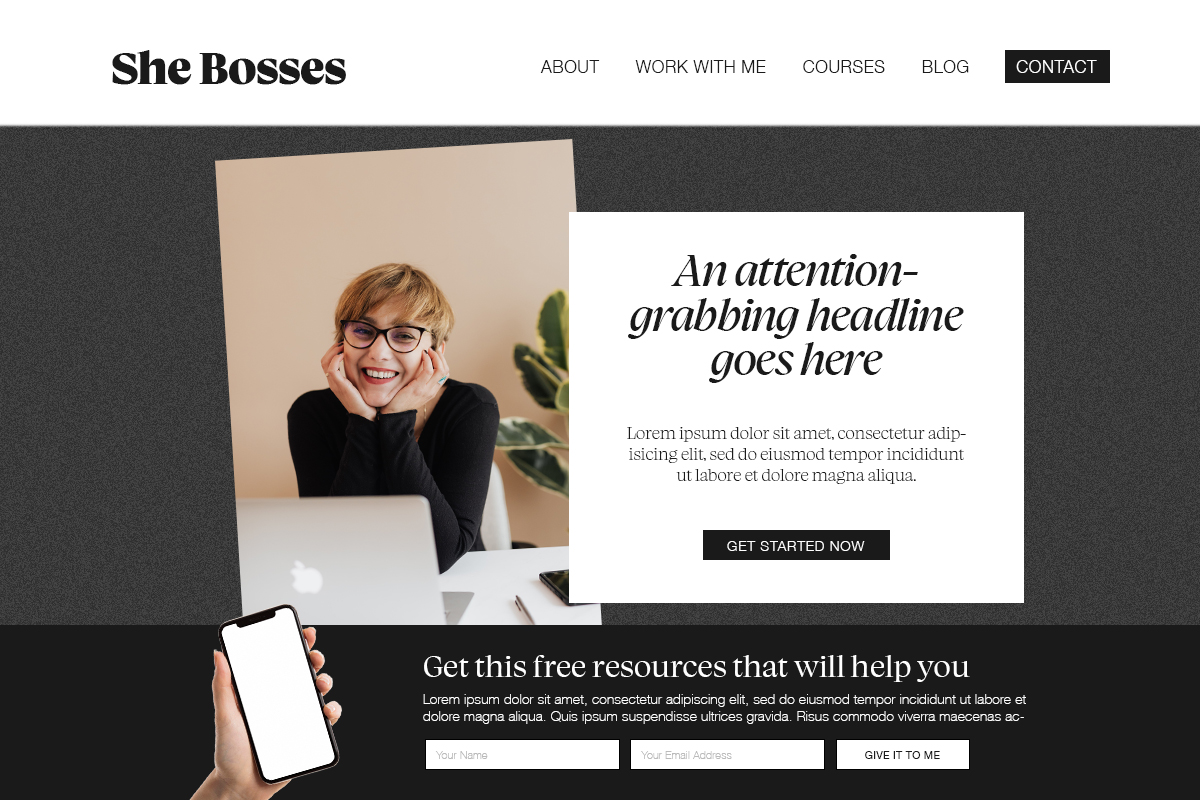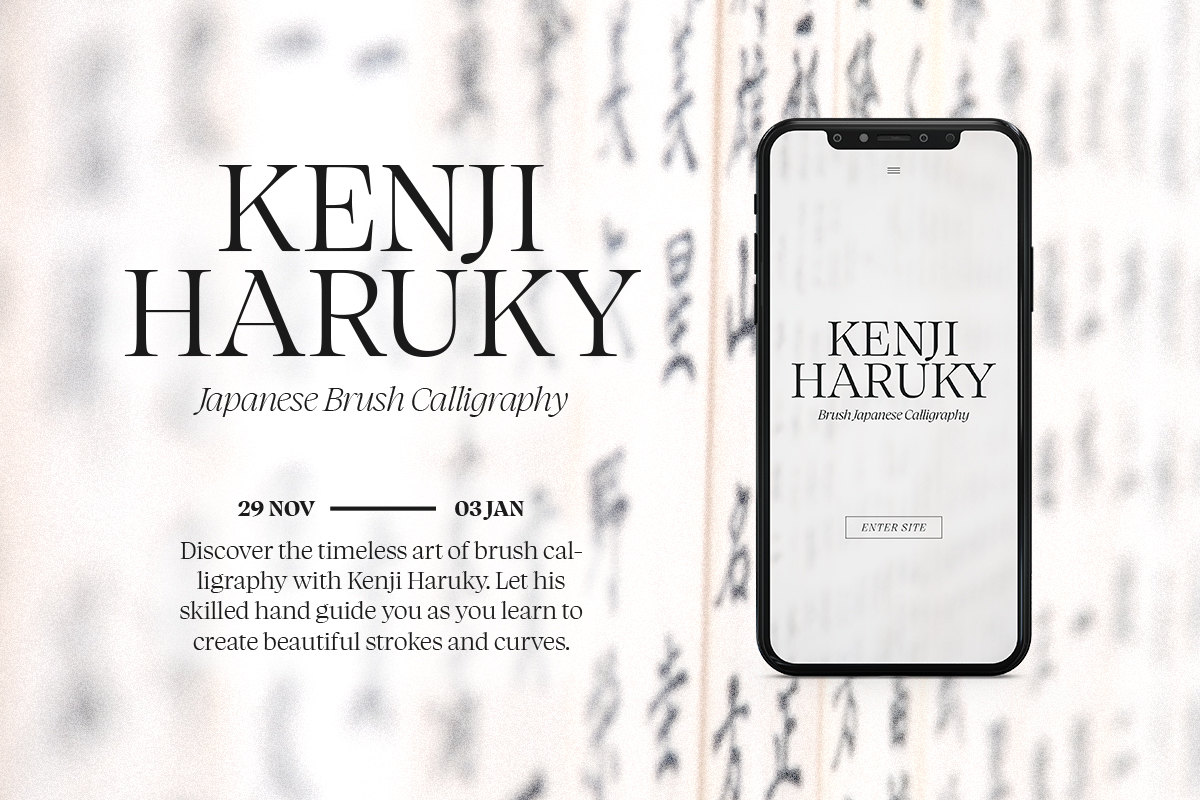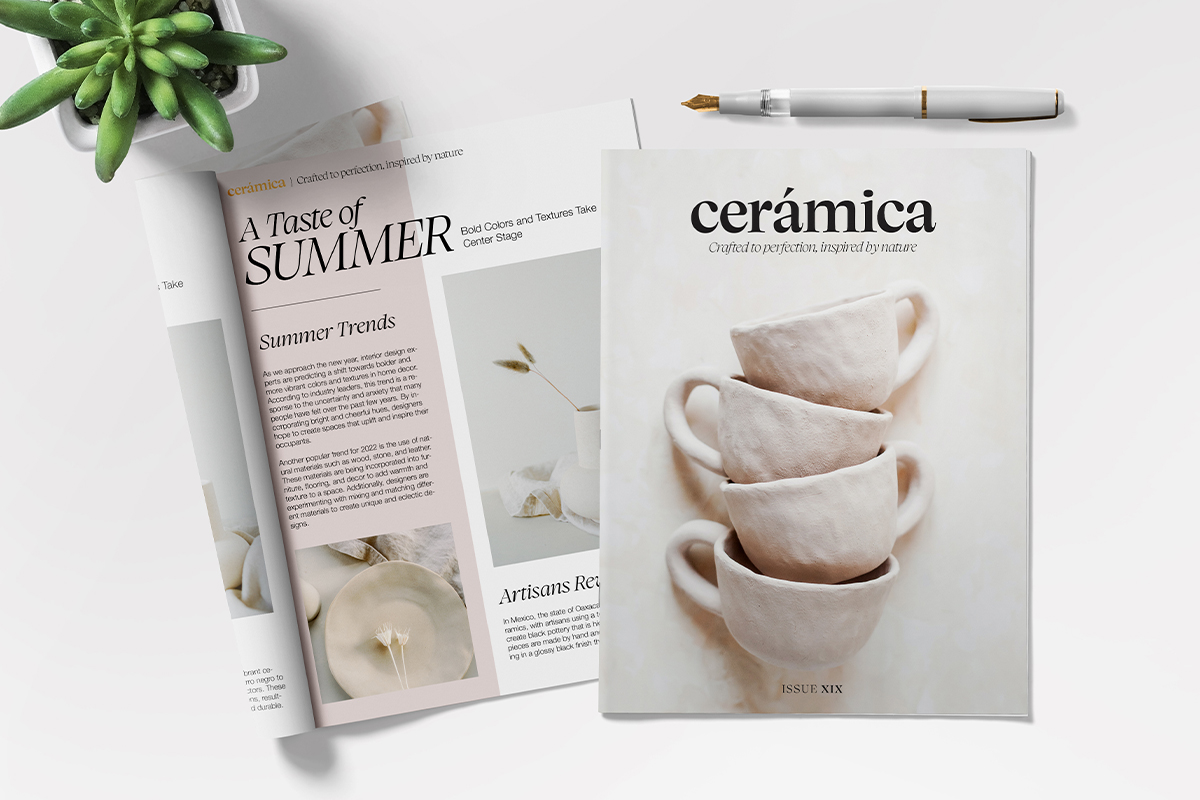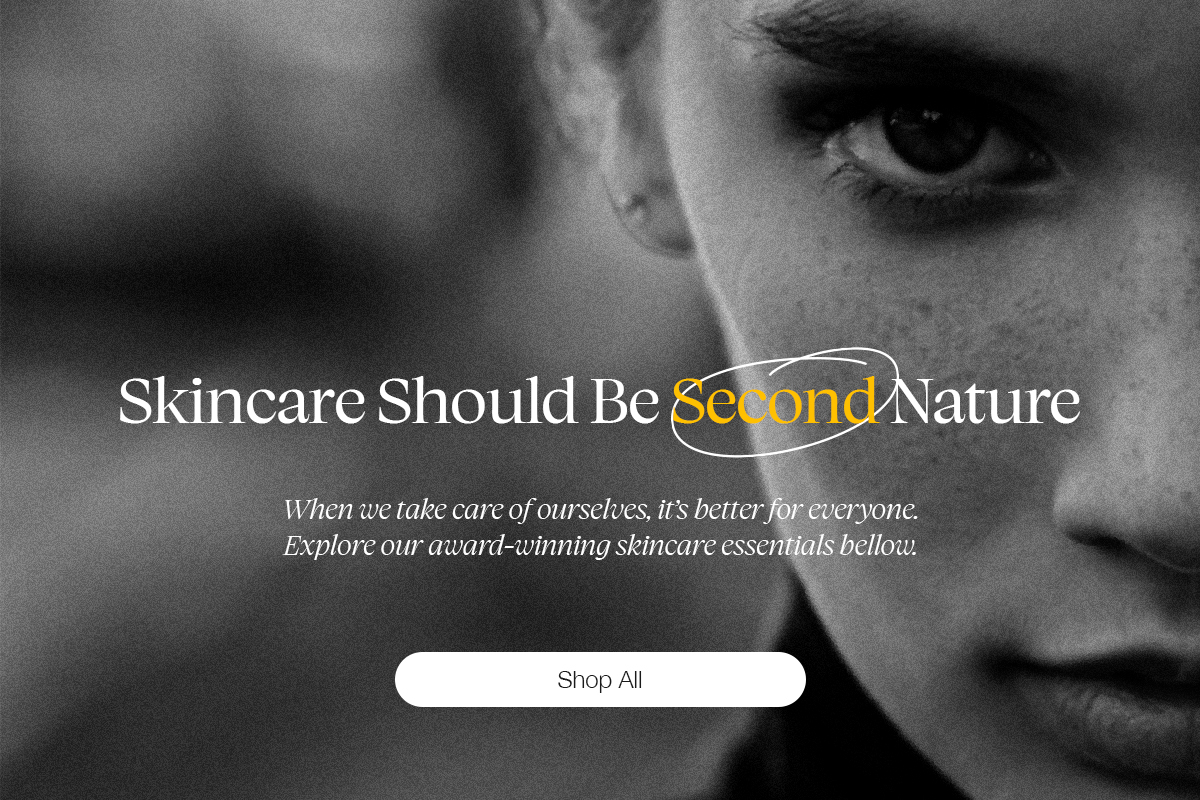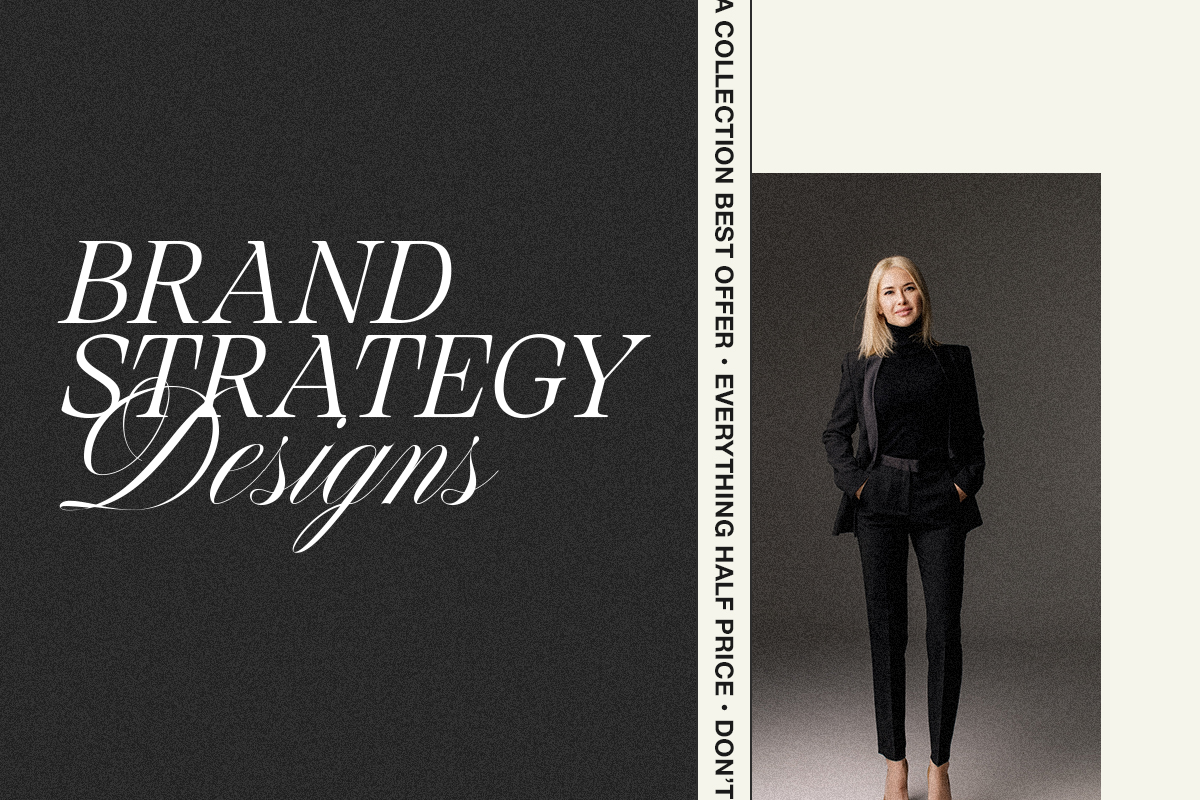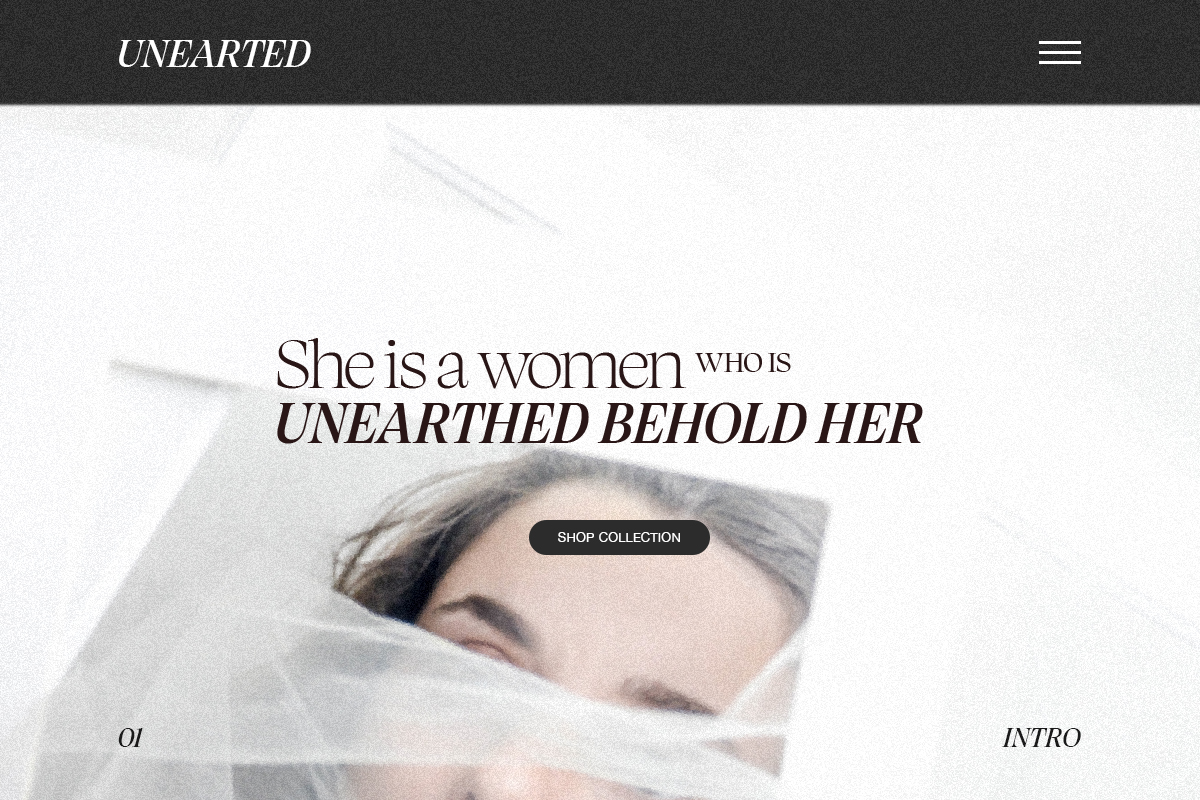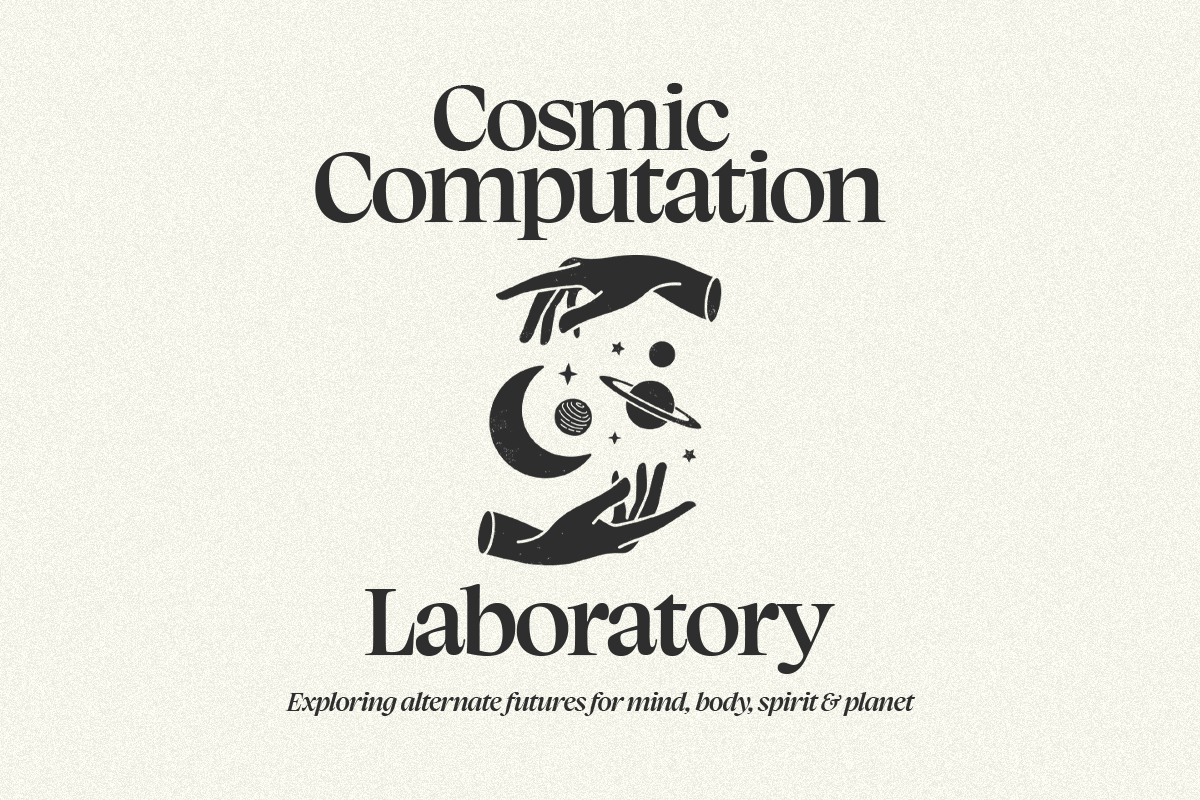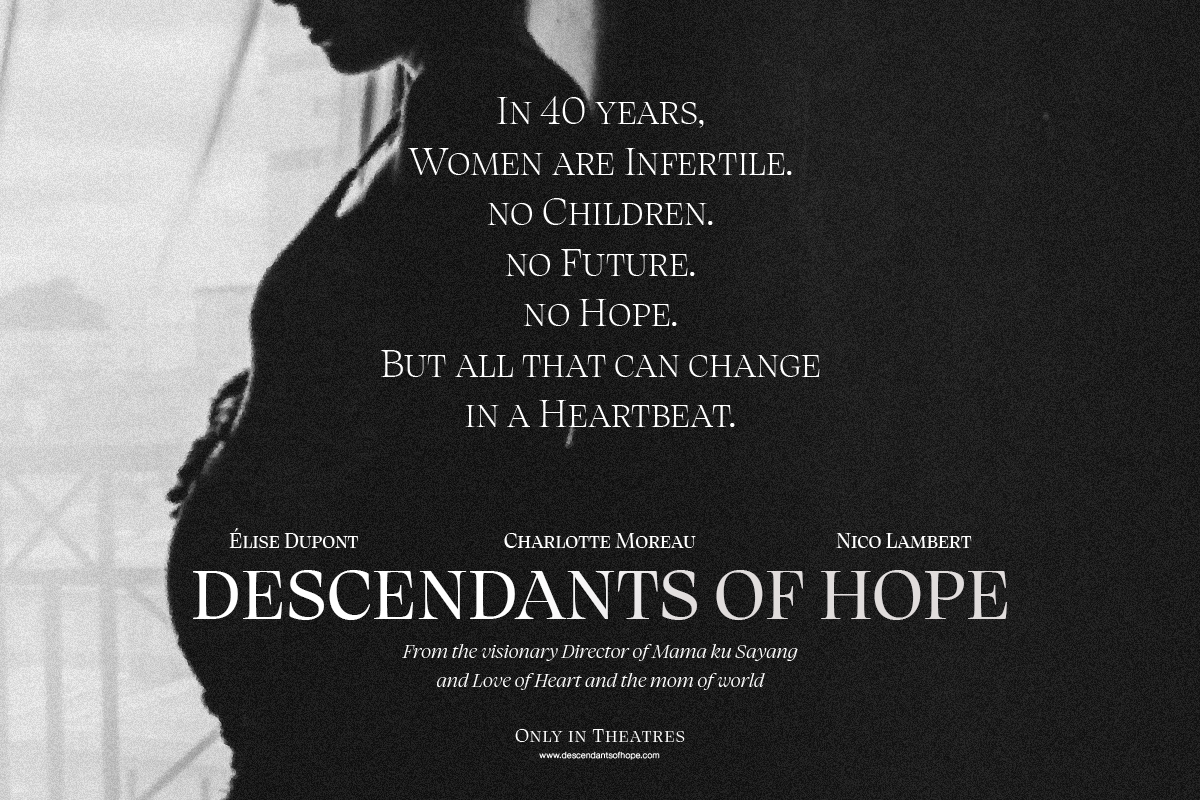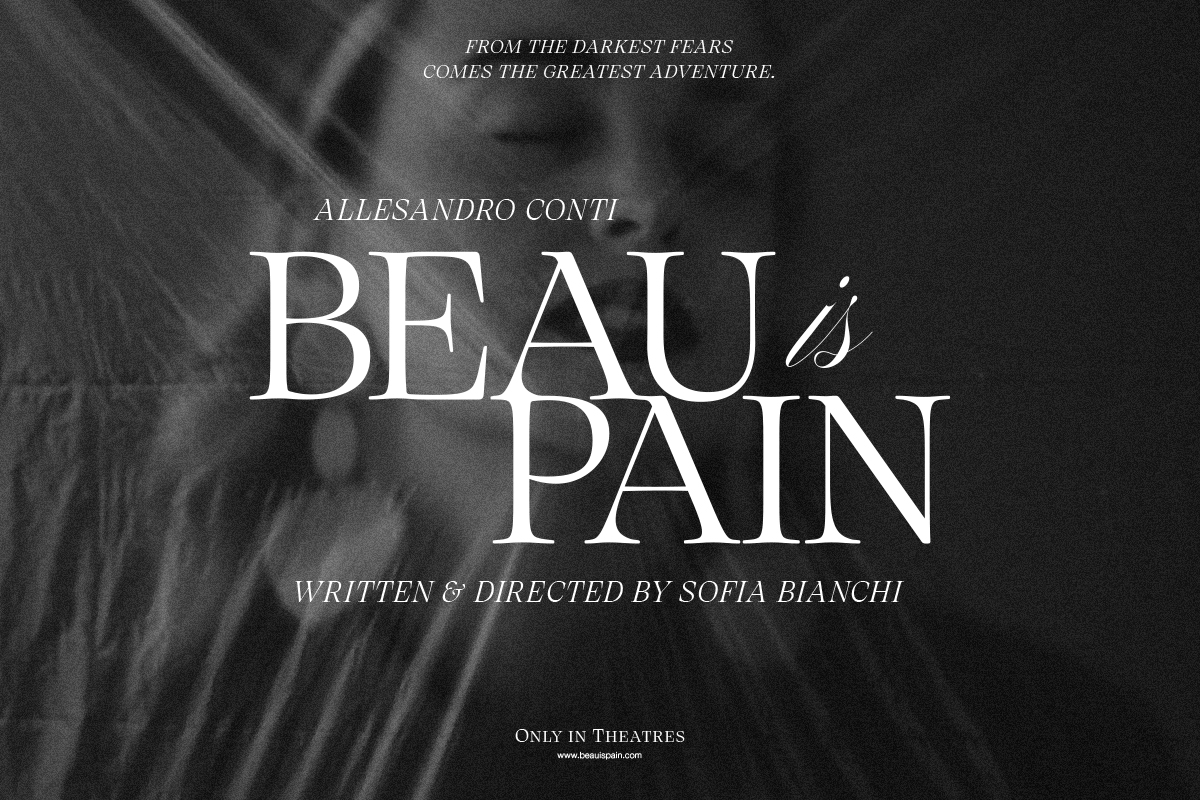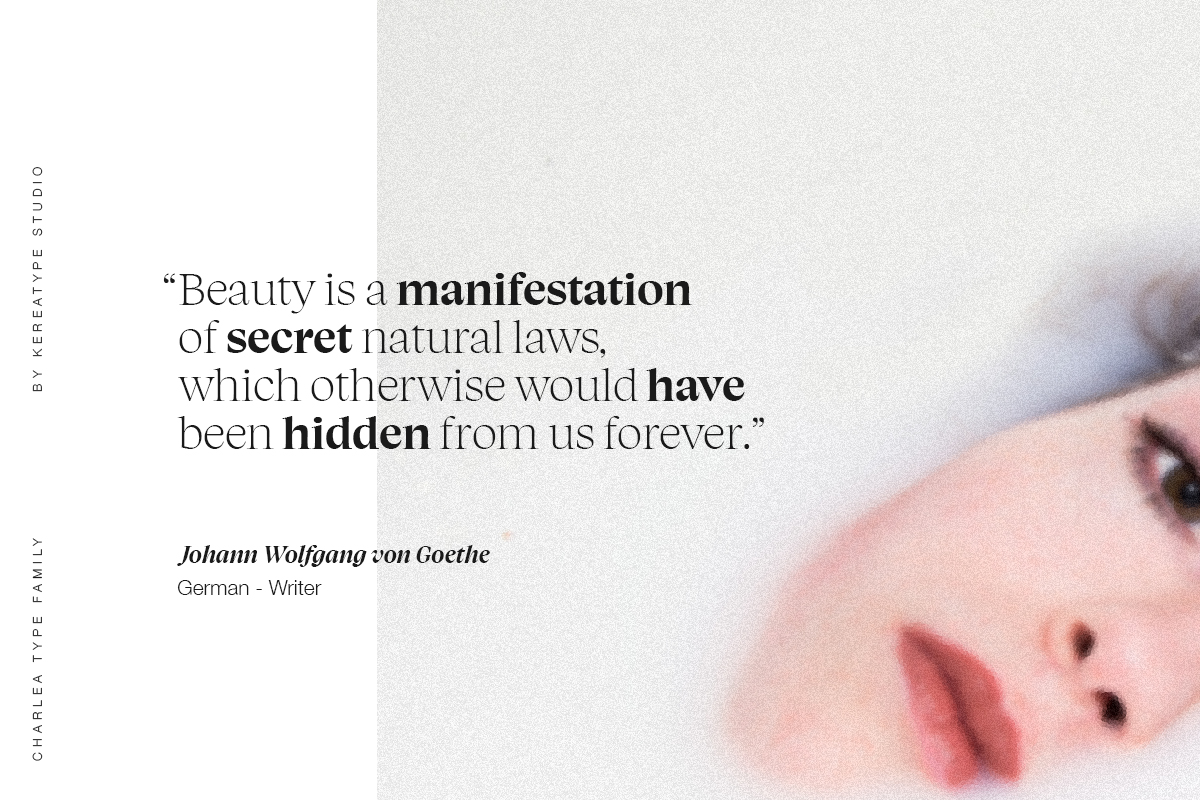
Charlea
A Sophisticated Editorial Serif Family Blending Luxury And Unique Charm For High-End Branding, Fashion Magazines, And Elegant Designs.
Charlea
Sophisticated Modern Editorial Quirky Serif
Charlea is a comprehensive serif typeface family comprising 20 fonts from Thin to Extra Black, including true italics. Merging modern editorial elegance with a touch of unique charm, it features distinctive serifs and subtle quirky details that offer a fresh take on classic beauty. Charlea is perfectly balanced for diverse contemporary needs, from luxury branding and high-end fashion magazines to exquisite wedding invitations and premium packaging. With its extensive weight range and refined presence, this versatile family provides designers with an editorial edge that is both timelessly sophisticated and visually striking.
Sophisticated Modern Editorial Quirky Serif